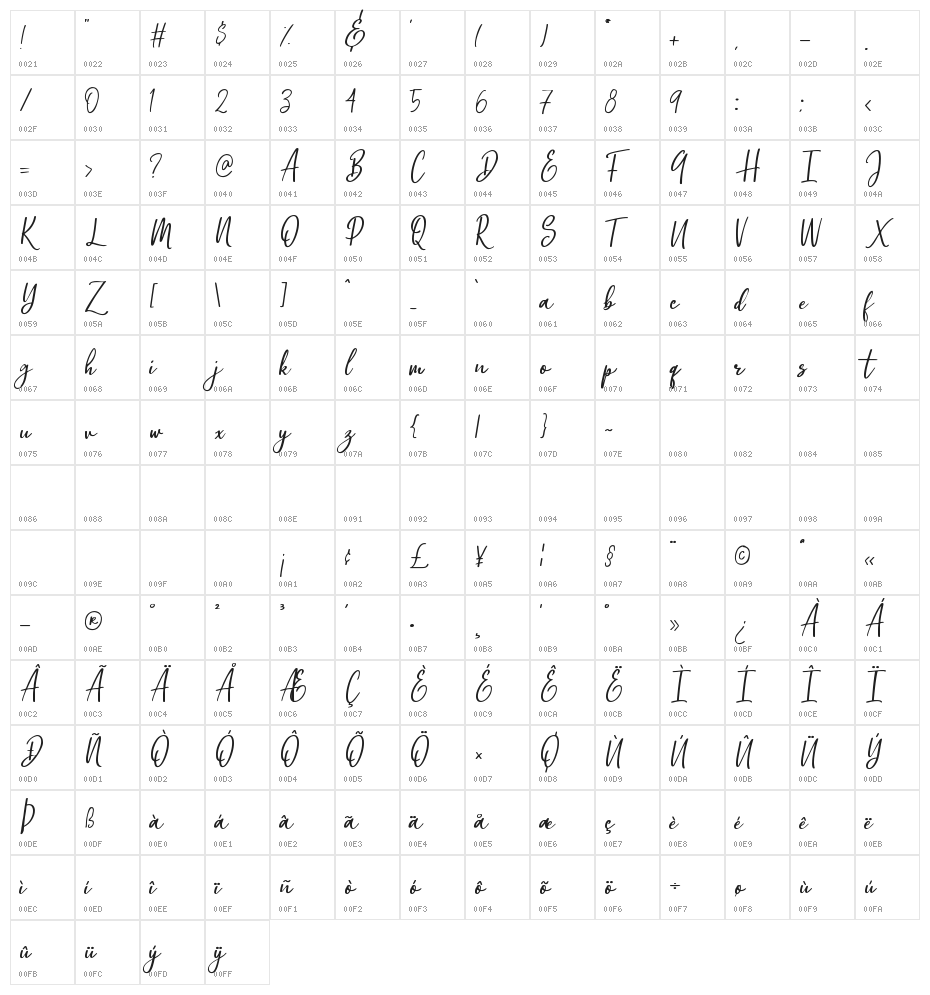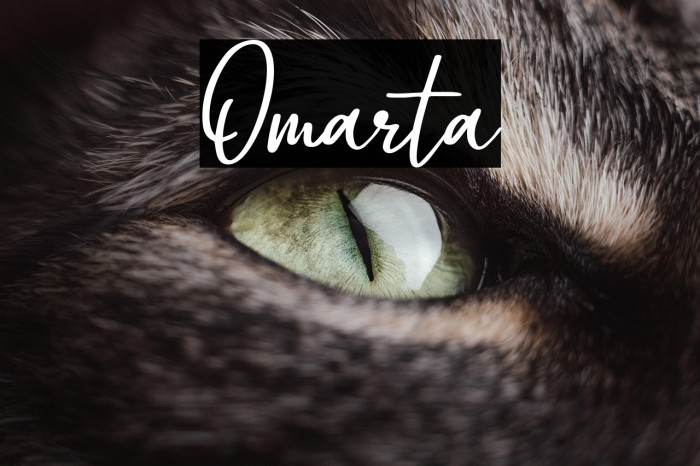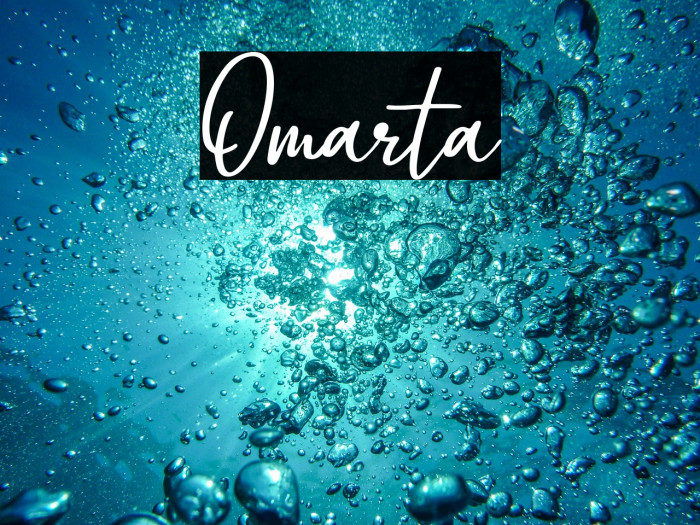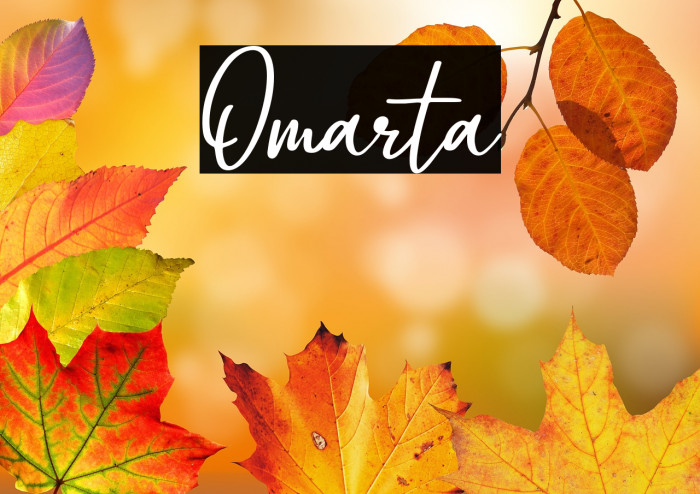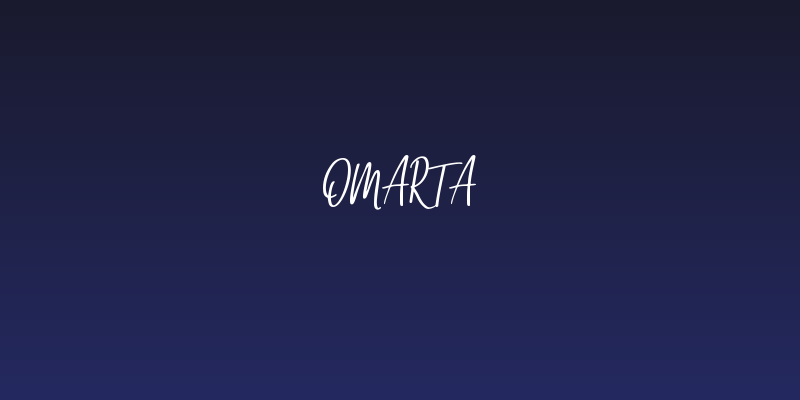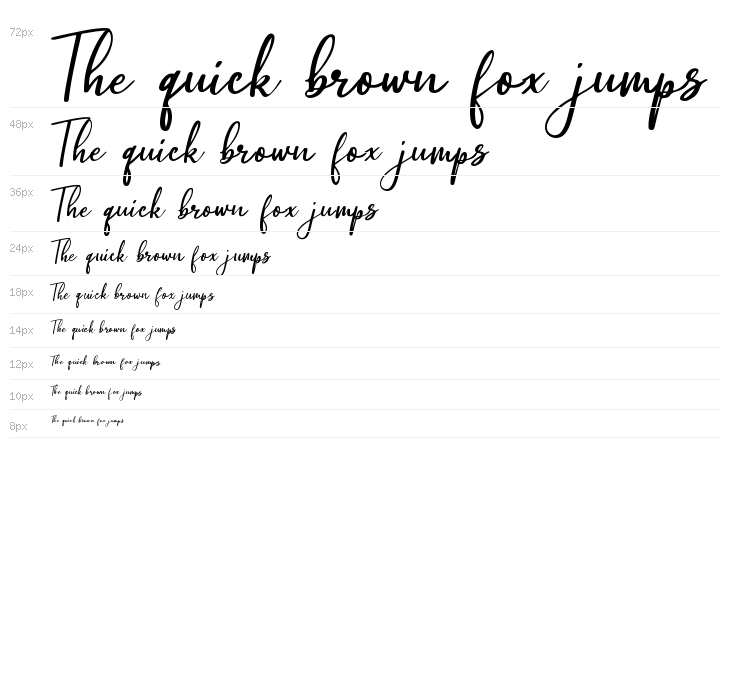
Omarta Font
Omarta Description
This font features a dynamic and flowing script style, characterized by its elegant and cursive letterforms. The uppercase letters are tall and slightly slanted, with a playful yet sophisticated appearance. The lowercase letters maintain a consistent flow, creating a harmonious and connected look. The numerals are stylish and complement the overall script aesthetic. Special characters are designed with the same fluidity, adding to the font's versatility. This font exudes a sense of elegance and creativity, making it suitable for a variety of design projects.